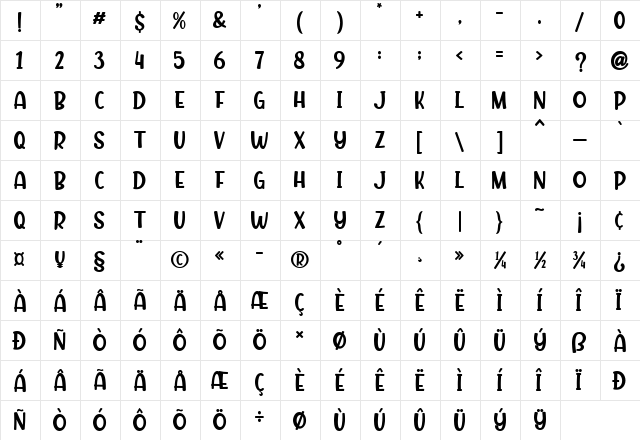
Playkidz Regular
| Designer | Icep Anwar Fadhil |
Design Context for Playkidz Typeface
Playkidz is a composed and adaptable typeface that performs quietly and consistently across a wide range of design contexts.